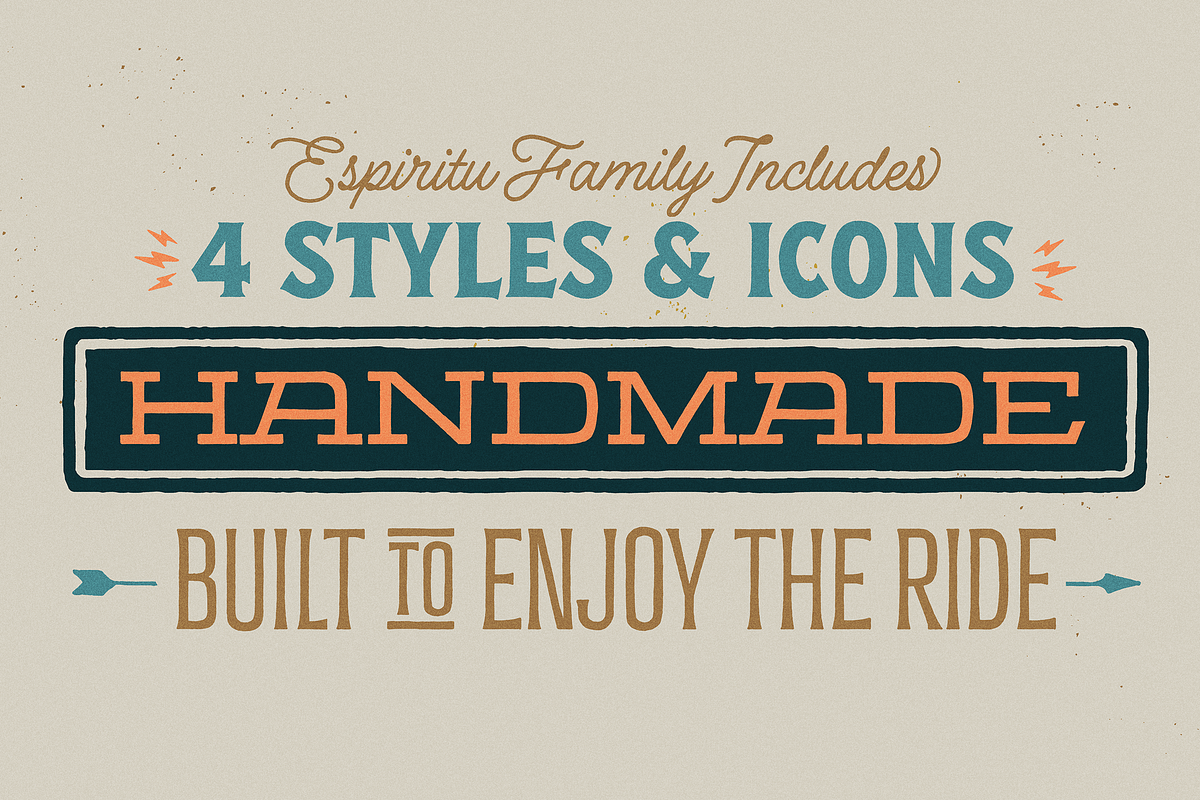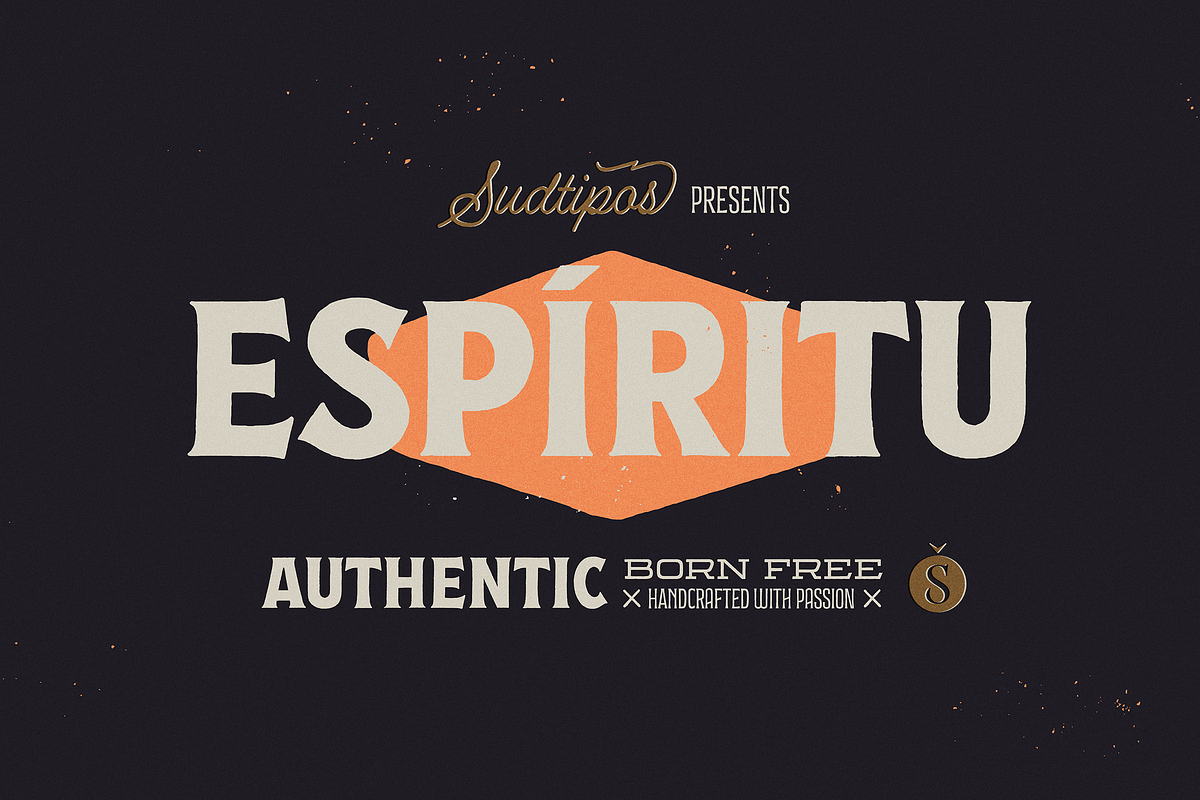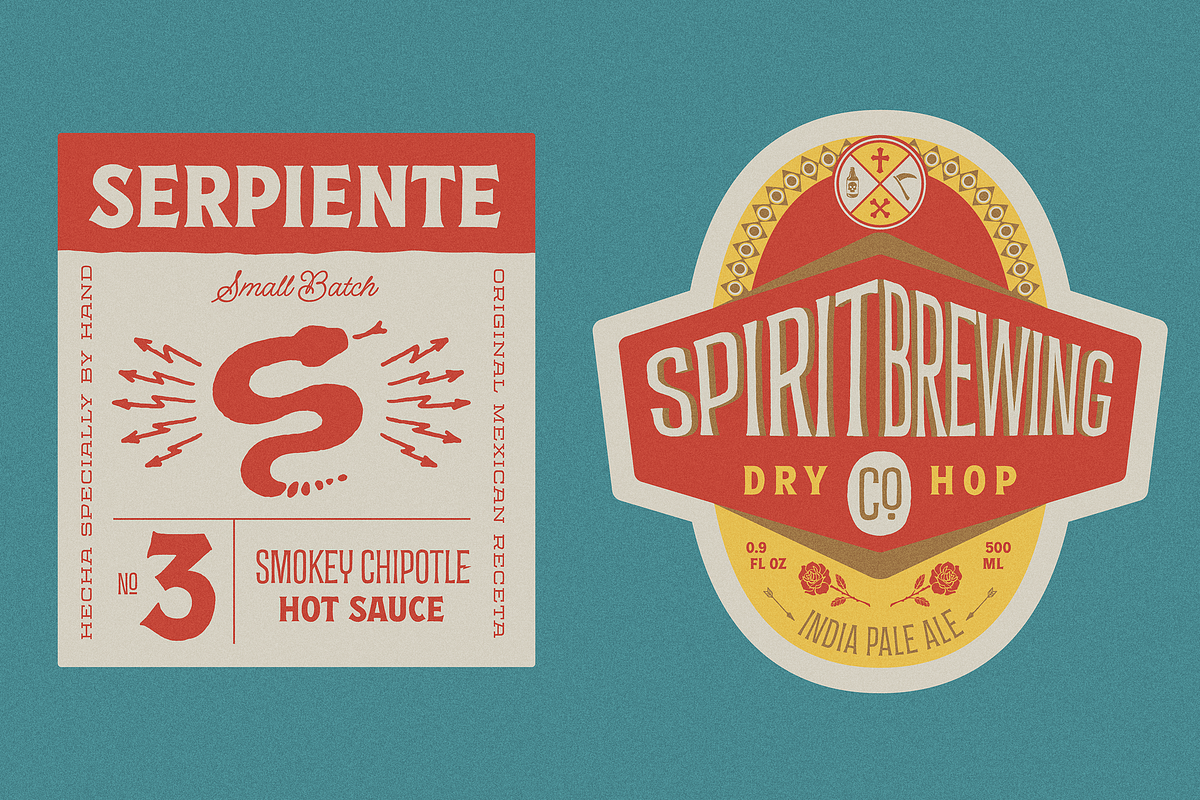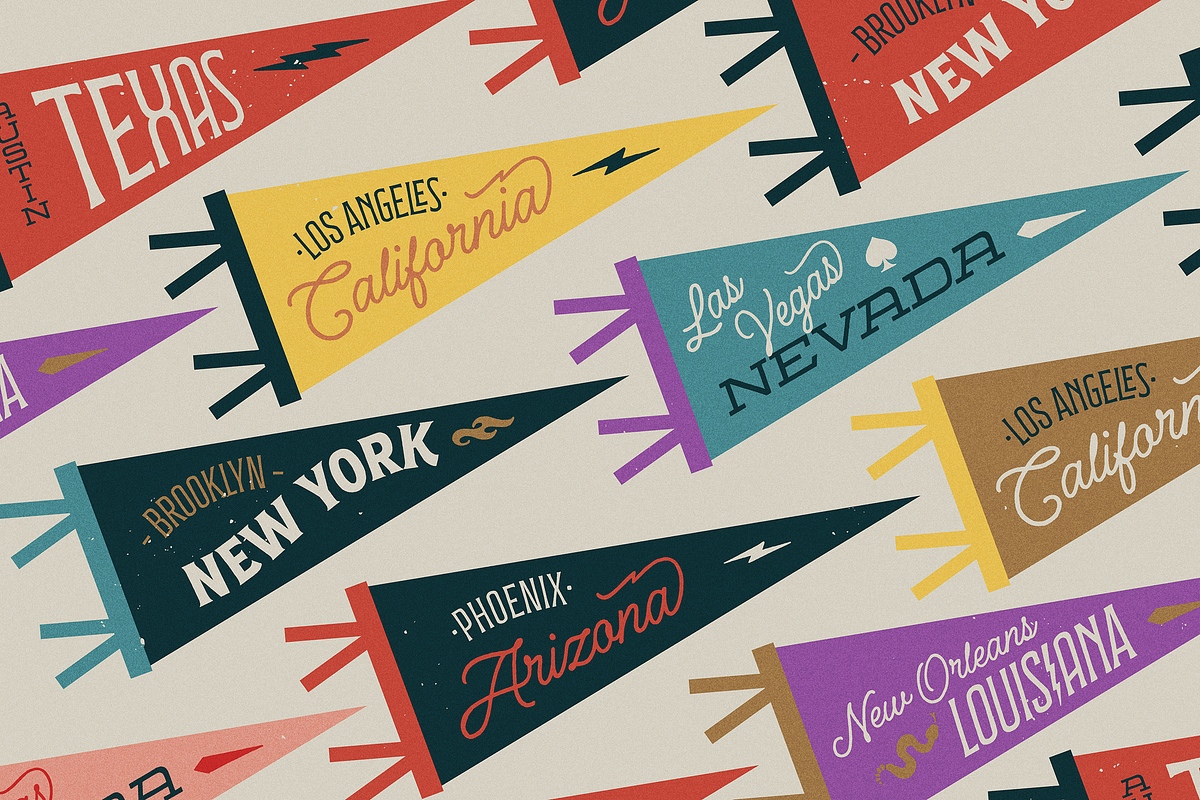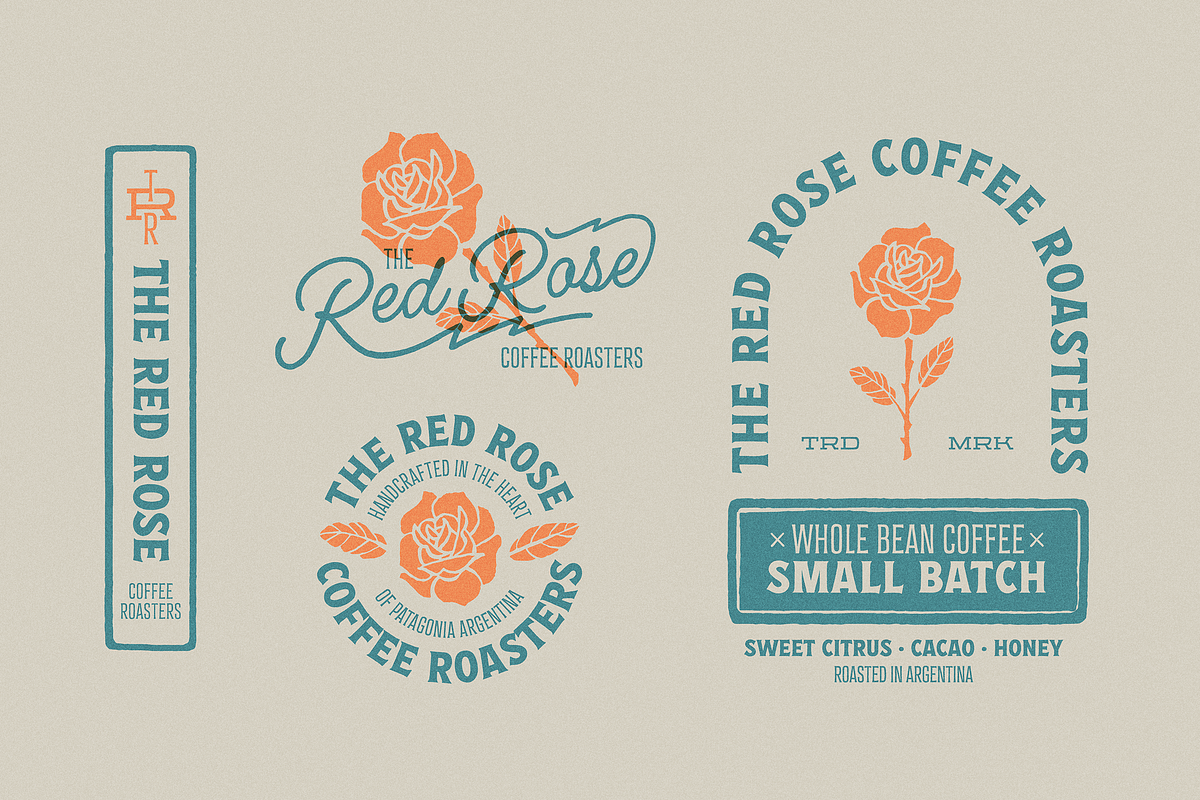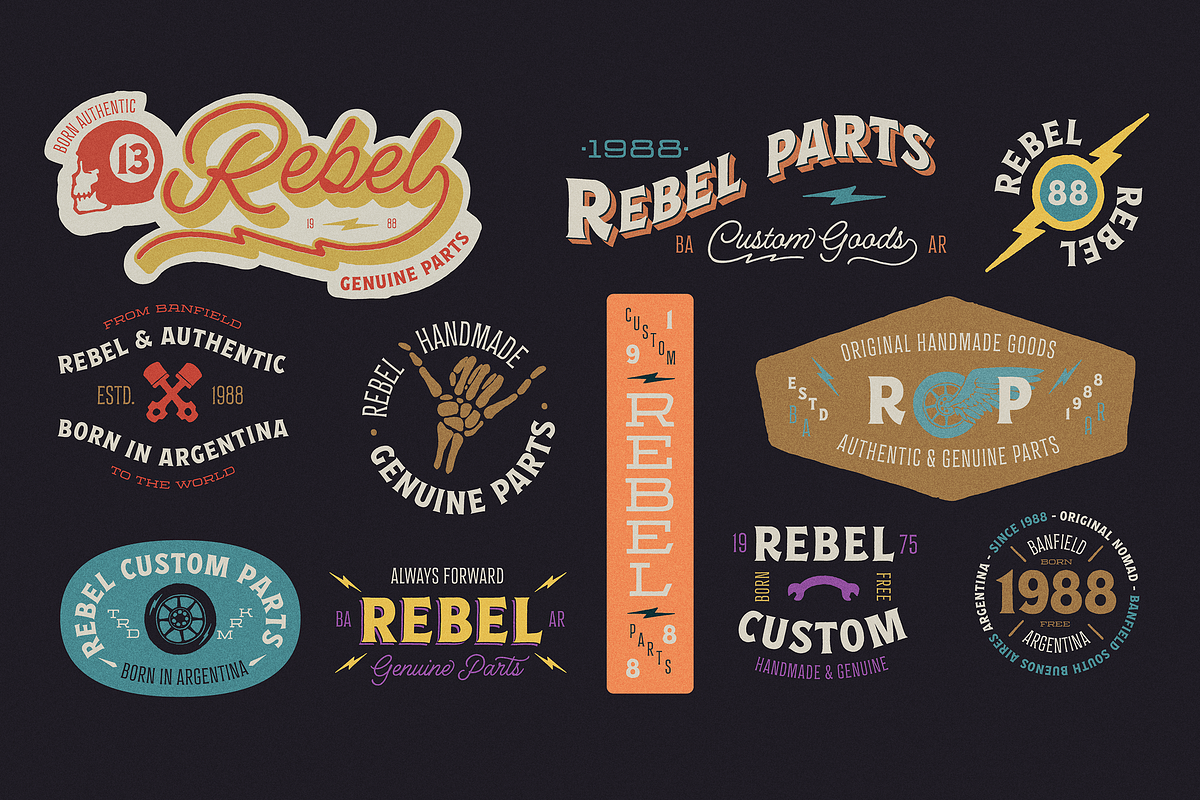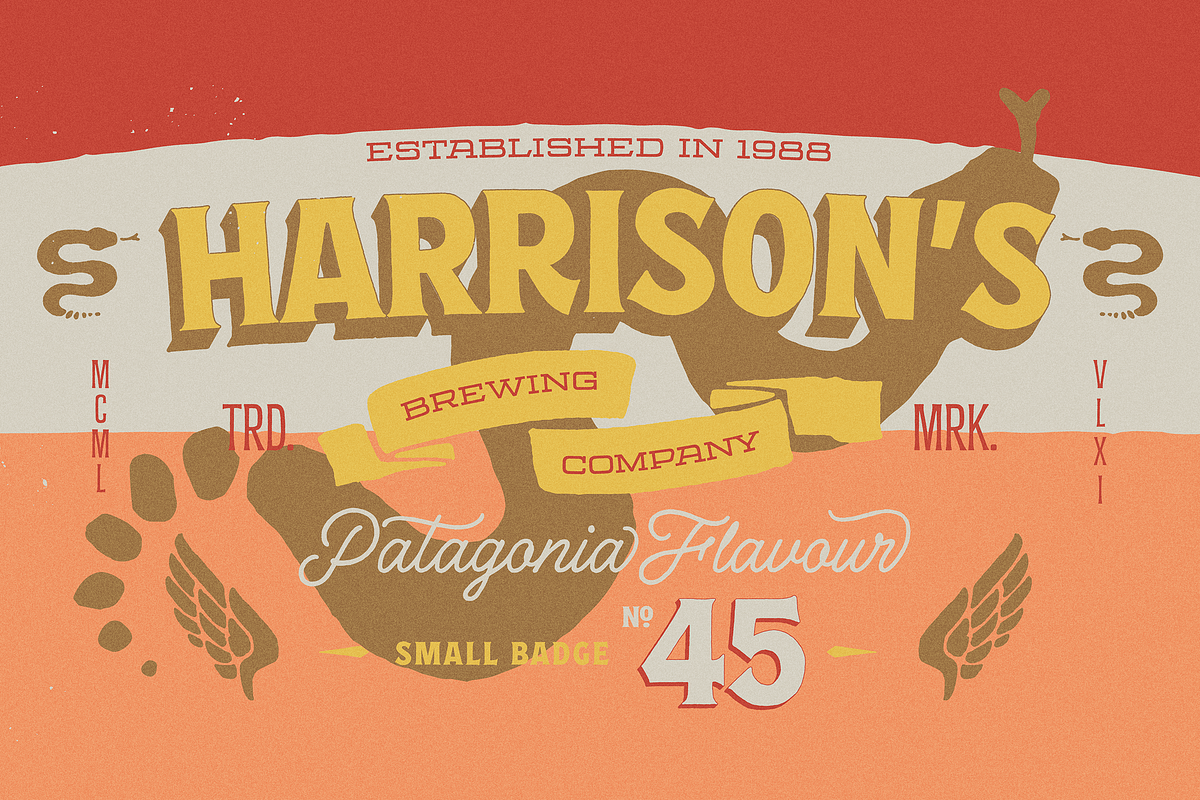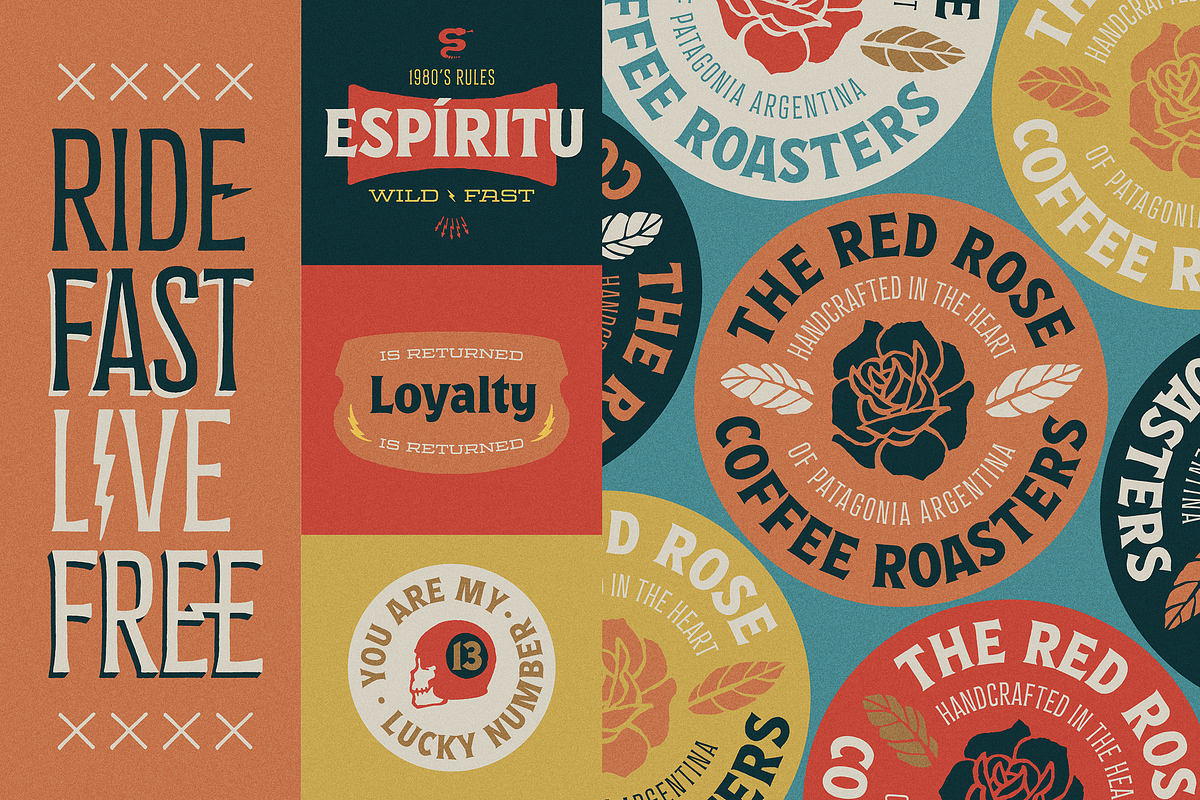
Espiritu font set
Espíritu is the first font illustrated and designed by talented Graphic Designer, lettering artist, illustrator and musician Agustín Pizarro Maire. For this entirely made-by-hand project, Agustín pushed his limits forward, significantly improving his notions in the type field, by applying his expertise and experience as an illustrator and letterer. With Type Direction and design assist by Guille Vizzari, both joined forces to face this voyage together. The result is a peculiar font family that seeks for a free spirit, one that is imperfect and unpretentious. With its soul deeply rooted in wanderlust, just enjoying the journey, like an endless road trip.
Espíritu is a type family guided by the impulse of the hand, getting lost in the details of infinite drawn letters and icons, that perfectly fit meticulous designs, achieving also great impact when needed.
Espíritu consists of five styles that complement each other to get different voice tones for each kind of design piece. Espíritu Regular, the heaviest one and most versatile; Espíritu Condensed, for tall and compact compositions; Espíritu Expanded, a wide serif style that’s great for billboards and short messages; Espíritu Script, a mono-weight cursive to add softness to the family; and finally a huge set of illustrations, symbols, badges and more in Espíritu Dingbats. Each of the alphabetical fonts offer an overflowing amount of alternates, swashes, and ligatures to maximize their capabilities.
To all the wild spirits out there, meet Espíritu, join the ride.